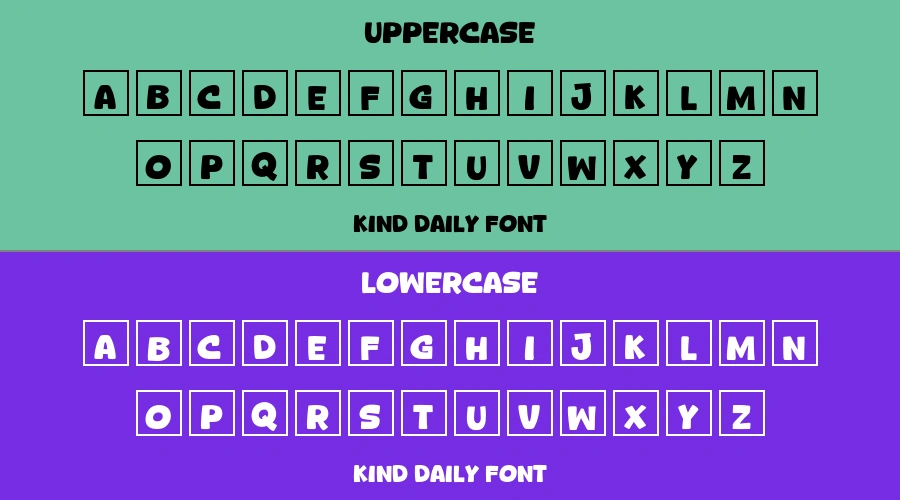
About Kind Daily Font
Kind Daily Font embodies typographic excellence through its masterful combination of consistent rhythm and functionality. Created for architectural plans, this typeface delivers exceptional precision and design innovation across all applications. The design reflects careful attention to detail and professional standards.
Advanced capabilities include distinctive humanist proportions and versatile dingbat elements, giving designers creative control. When used in display applications, Kind Daily Font exhibits remarkable memory recall. The harmonious balance between ear formation and cultural references sets this typeface apart.